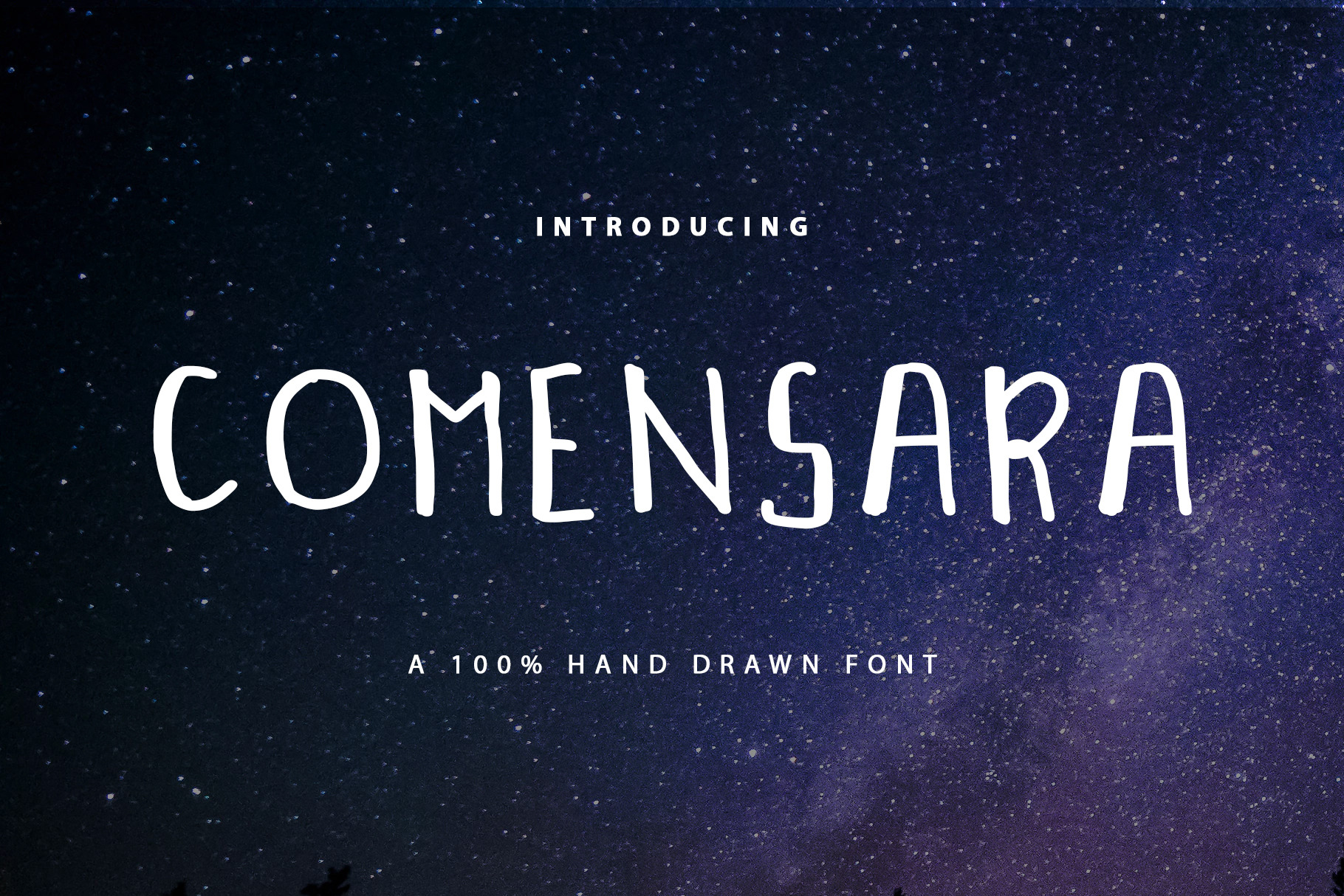
Comensara Font For Book and Poem
Sans serif hand-drawn display font called Comensara was designed for modern, childish, feminine, unique and other style also fit for Kids stories, book and poems.